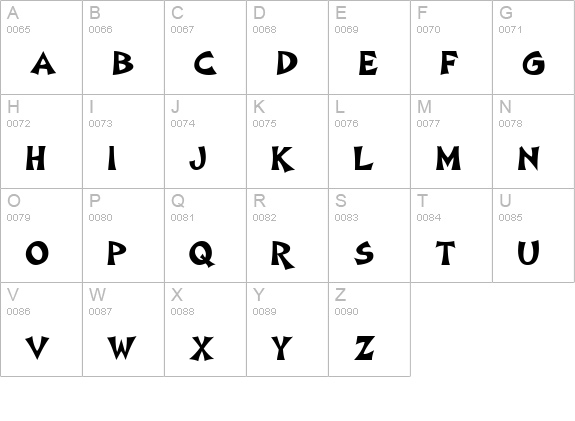
Loose Cruse Bold Font Details
Loose Cruse Bold is a strong, high-contrast variant in the Loose typeface family \xE2\x80\x94 well suited to headlines, attention-grabbing titles, and strong calls-to-action.
Loose Cruse Bold font is a dynamic and versatile typeface that exudes confidence and modernity. With its bold and impactful letterforms, this font is perfect for making a statement in headlines, titles, and branding materials. The strong lines and distinctive character of Loose Cruse Bold make it stand out and grab attention. What's even better is that Loose Cruse Bold font is available for free download at FontsMarket.com. You can easily access this eye-catching font and incorporate it into your design projects without any cost. Don't miss out on the opportunity to enhance your creations with the bold and expressive style of Loose Cruse Bold font.